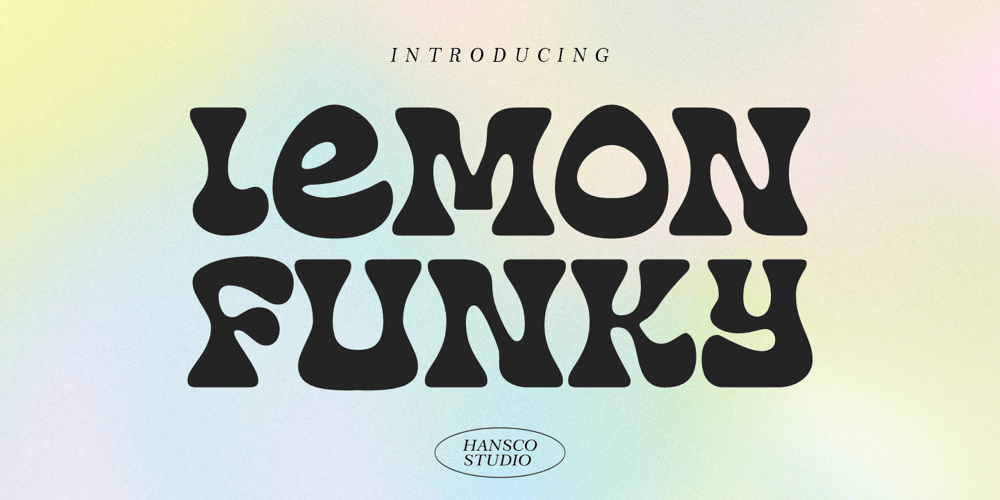
Lemon Funky
Lemon Funky font
Lemon Funky Font Family was designed by Burhan Afif and published by HansCo. Lemon Funky contains 1 styles and family package options. Lemon Funky Font is a retro psychedelic font style with rounded touch. Equipped with all complete characters ranging from all uppercase letters, numbers, punctuation marks and multi-lingual support, this font is ready to be used in any project. Very suitable for logotype, Stickers, Packaging design, Cricut Project, headlines, brand identity, t shirt or apparel industry, posters, magazines, books, YouTube, Instagram, websites, Canva, Corjl or any of your creative design projects.Enjoy!